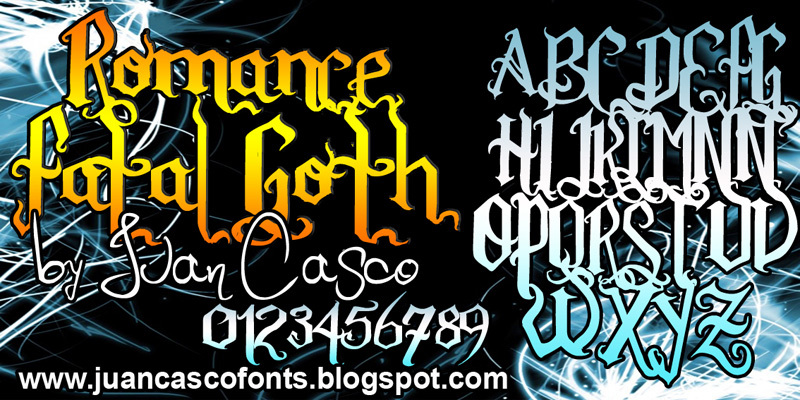
Romance Fatal Goth Versal by Juan Casco is a free medieval blackletter font with an imposing, ceremonial silhouette. Its steep angular strokes and pronounced thick-thin changes are threaded with long curls and sweeping flourishes, giving the letters the look of embellished manuscript initials rather than plain Gothic type.
Medieval romance, dark fantasy, and courtly drama are natural subjects for this lettering, making it useful for book covers, role-playing game graphics, themed event invitations, and historical exhibition posters. In publishing, those curling extensions can become part of a cover's ornament, linking a title to borders, heraldic details, or period-style illustration.